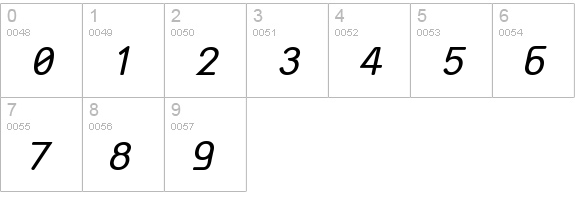
Street Corner Oblique Font Details
Street Corner Oblique is a distinctive, italic variant in the Street typeface family \xE2\x80\x94 well suited to design and typography projects.
Street Corner Oblique font is a versatile and dynamic typeface that exudes urban sophistication and modern edge. With its slanted design and bold, eye-catching letters, this font is perfect for creating striking headlines, posters, and branding materials. The unique angles and sharp lines of Street Corner Oblique add a contemporary touch to any design project, making it stand out from the crowd. Best of all, Street Corner Oblique font is available for free download at FontsMarket.com. Whether you're a designer looking to add a touch of urban flair to your work or a creative individual in need of a fresh new font for your projects, Street Corner Oblique is the perfect choice. Download it today and unleash your creativity with this stylish and modern typeface.